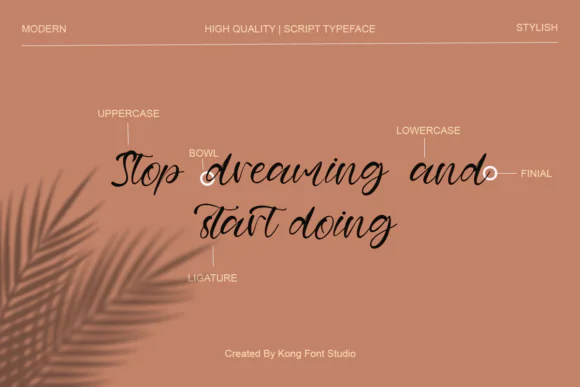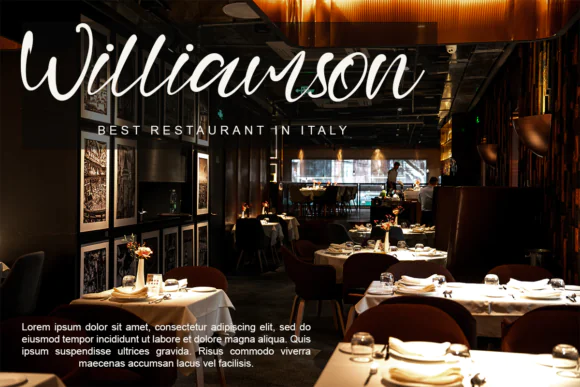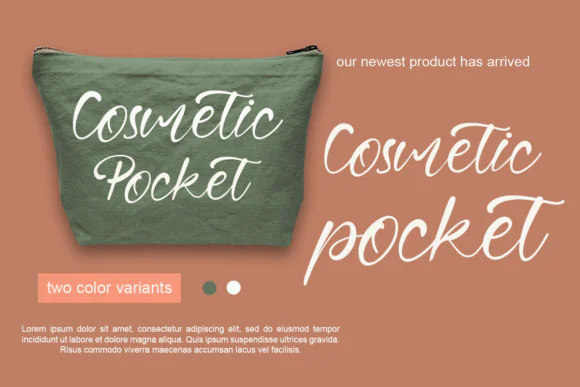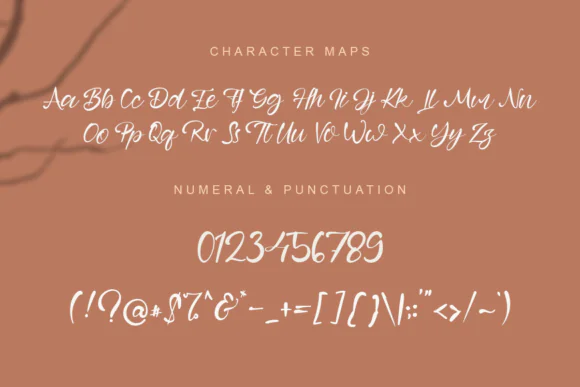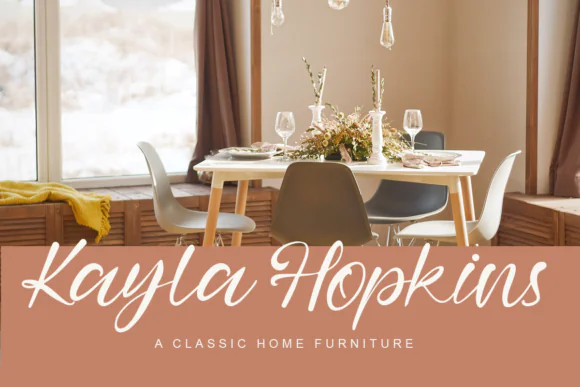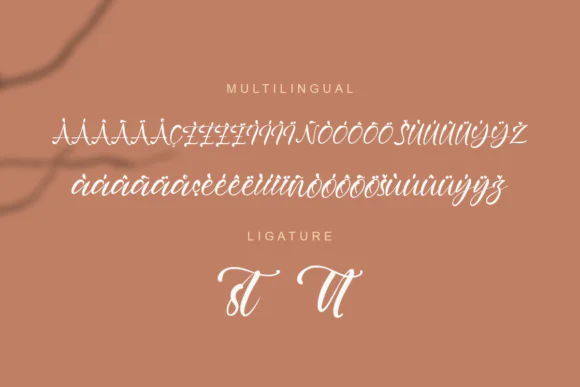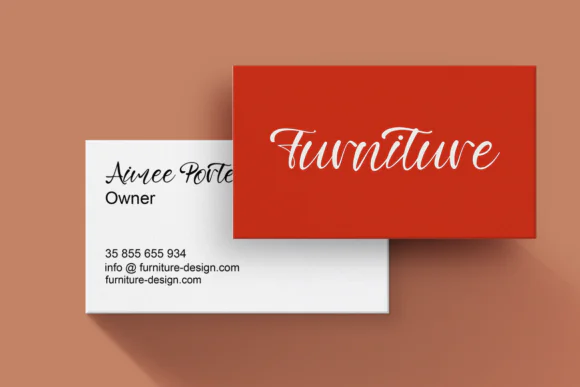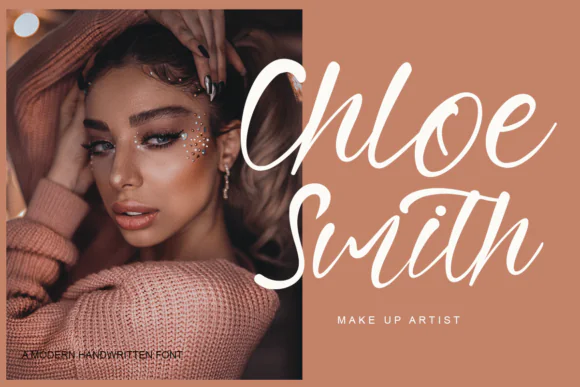
Bring charm, movement, and romantic personality to your designs with Glory Heart Font, a lovely script typeface featuring playful characters that flow beautifully along the baseline. With its graceful handwritten style and cheerful decorative feel, this font is perfect for creative projects that need a soft, charming, and eye-catching look.
Glory Heart Font is ideal for wedding invitations, love quotes, greeting cards, Valentine’s Day designs, romantic posters, social media graphics, stickers, product labels, boutique branding, stationery, printable wall art, packaging, and personalized gift designs. Its playful script style gives your text a lively handwritten appearance, helping your words feel more expressive, artistic, and memorable.
Whether you are designing a romantic invitation, a cute love-themed card, a feminine logo, a handmade product label, or an elegant social media post, Glory Heart Font adds a warm and stylish touch that helps your creative ideas stand out.